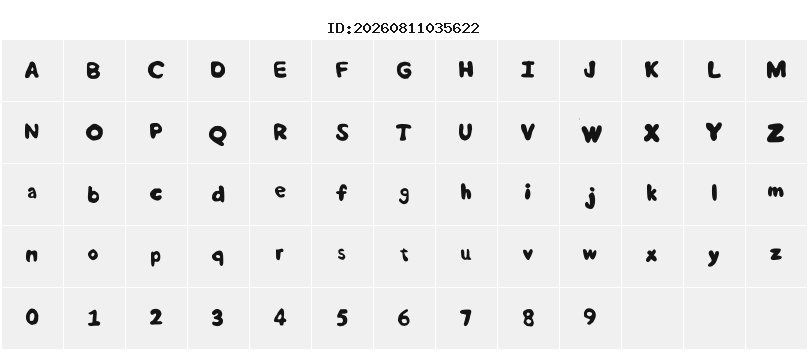
Rounded Semibold Preview
• Font Name: Rounded Semibold
• Full Font Name: Rounded Semibold Medium
About Rounded Semibold.ttf
Rounded Semibold.ttf is a modern, elegant sans-serif font designed for ultimate readability and visual harmony. Perfect for branding, headlines, web design, and print materials.